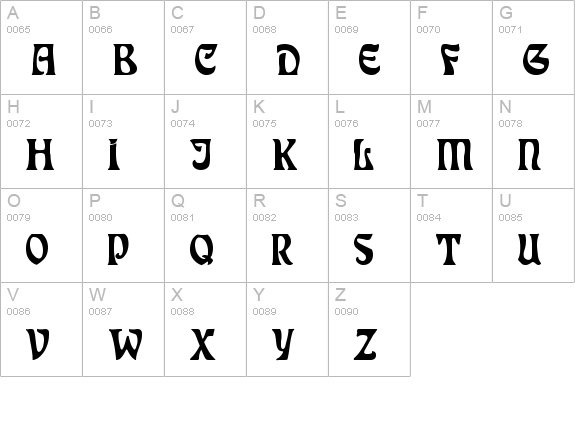
RSRudelsberg Font Details
RSRudelsberg font is a beautifully crafted typeface that exudes elegance and sophistication. With its stylish and modern design, this font is perfect for a wide range of projects, from branding to editorial design. The sleek lines and unique flourishes give RSRudelsberg font a distinctive look that will make your text stand out. The best part? RSRudelsberg font is available for free download at FontsMarket.com. This means you can start using this stunning font in your projects right away, without any cost. Whether you're a designer looking to add a touch of class to your work or a business owner wanting to elevate your brand's image, RSRudelsberg font is the perfect choice. Don't miss out on this opportunity to enhance your designs with the beauty of RSRudelsberg font. Download it for free today and see the difference it can make in your projects.